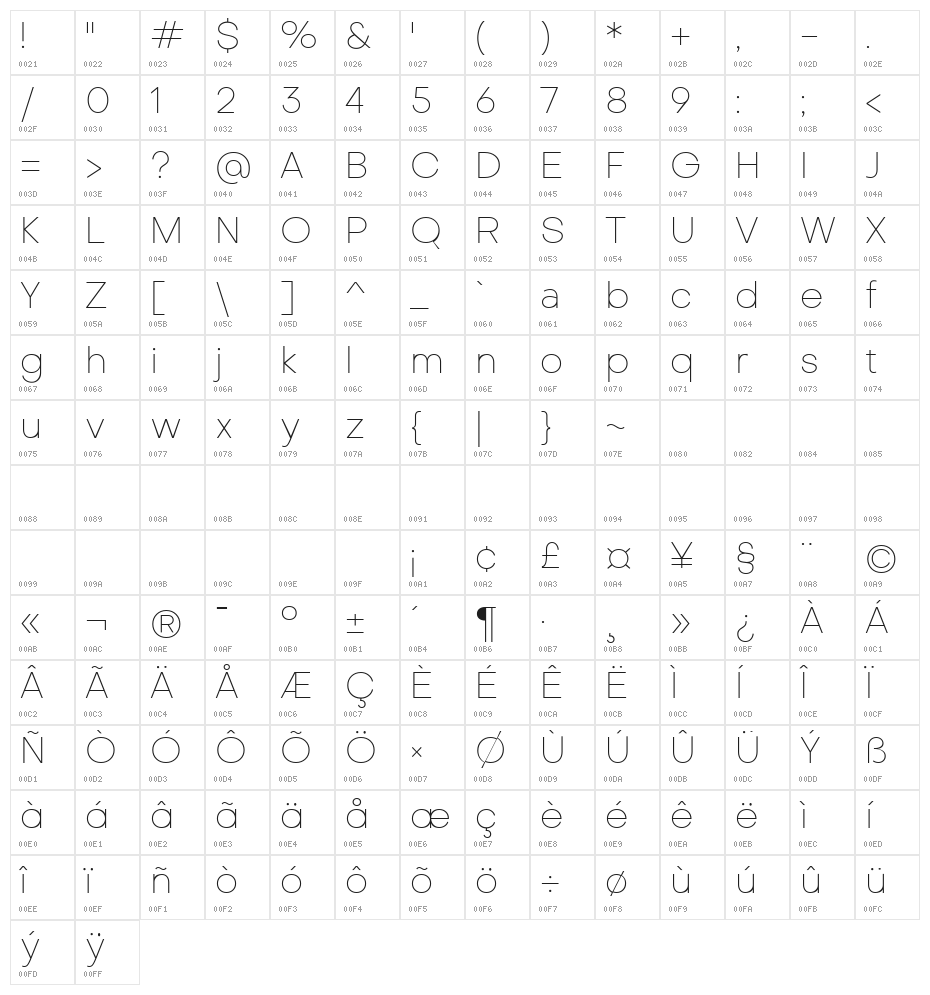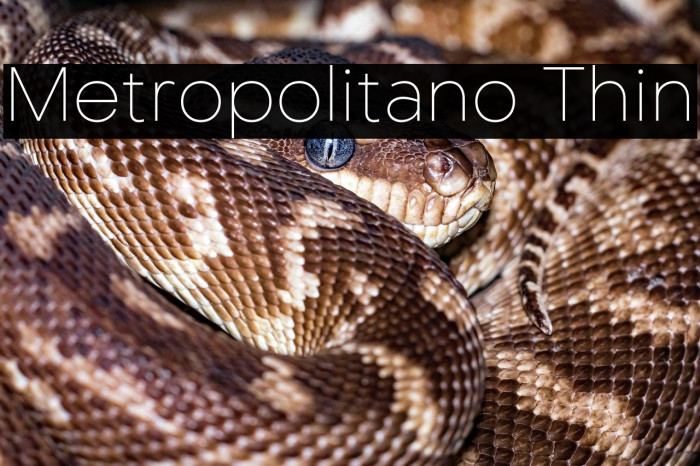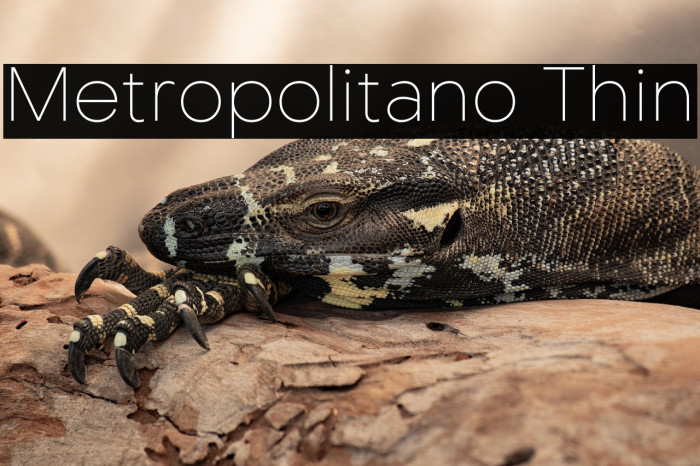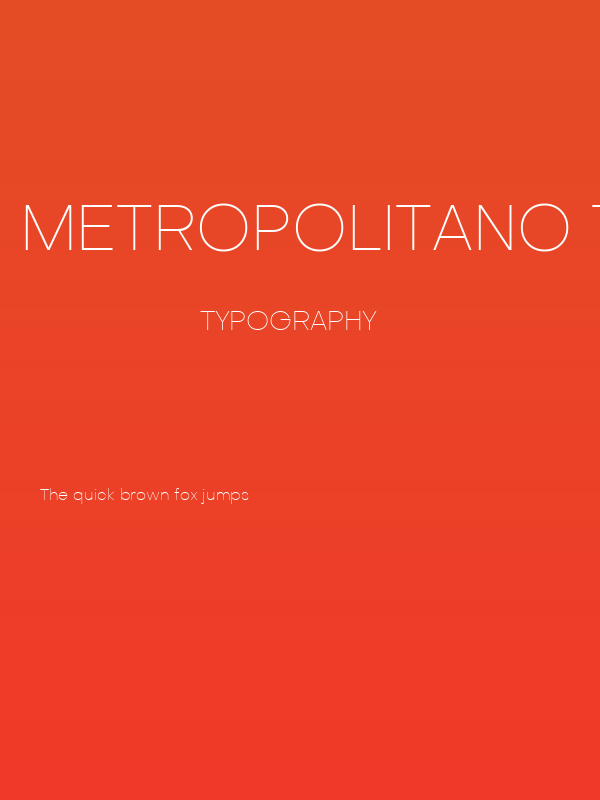
Metropolitano Thin Font
Metropolitano Thin Description
This font features a sleek, minimalist design with thin, uniform strokes that convey a sense of modernity and elegance. The characters are evenly spaced, contributing to a clean and airy appearance. The uppercase letters are tall and slender, while the lowercase letters maintain a consistent height, enhancing readability. The numerals are proportionate and align well with the overall aesthetic. Special characters are crafted with precision, maintaining the font's cohesive look. This font's simplicity and clarity make it versatile for various design applications.
| Proposed Projects | Ideal for modern branding, minimalist posters, elegant invitations, and contemporary web design. |